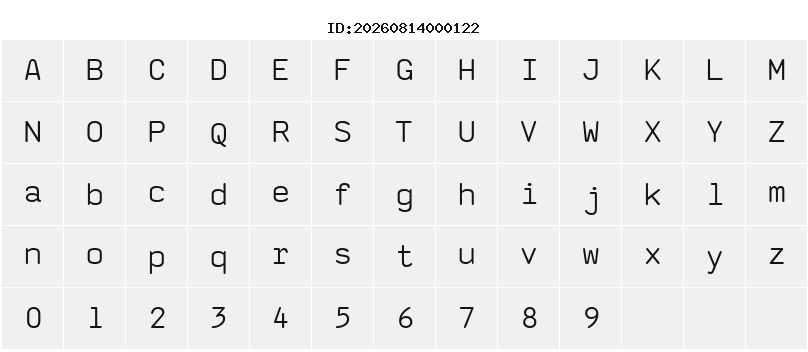
• Font Name: saxMono
• Designer: Robert Norton
• Manufacturer: s.a.x. Software
• Description: saxMono is a sample of a fine TrueType with high screen quality. Its spacing (11 cpi@12 pt) is between the Courier and Letter Gothic. s.a.x.: Our business is printing solutions for corporates. We cover letterheads, faxes, invoices and everything, what was pre-printed in former times. Our solutions ensure for our customers to have "always everywhere the right form". One mayor basis for the "right" and corporate identity conforming forms is the right font in a "as good as Arial" screen quality. So we are specialized in generating high quality fonts, like this sample.
saxMono.ttf is a modern, elegant sans-serif font designed for ultimate readability and visual harmony. Perfect for branding, headlines, web design, and print materials.